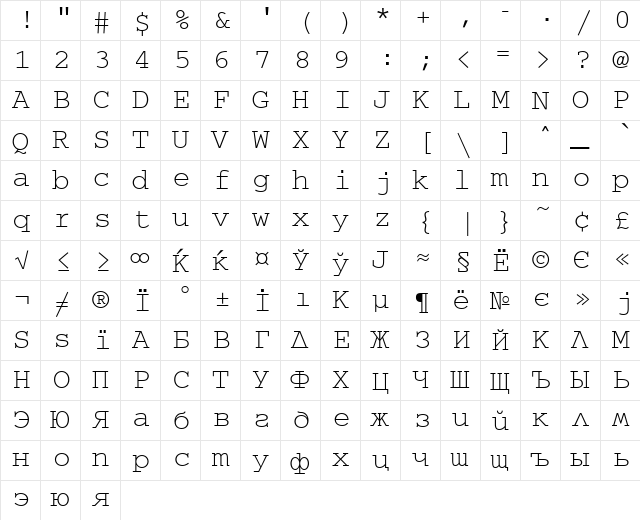
Cougel Medium
Design Context for Cougel Typeface
Cougel takes a measured approach to typography — its balanced proportions and neutral character make it a reliable workhorse for both digital and print work.
Pro Tip: Use Cougel in both headline and body roles to test its range before committing to a single application.